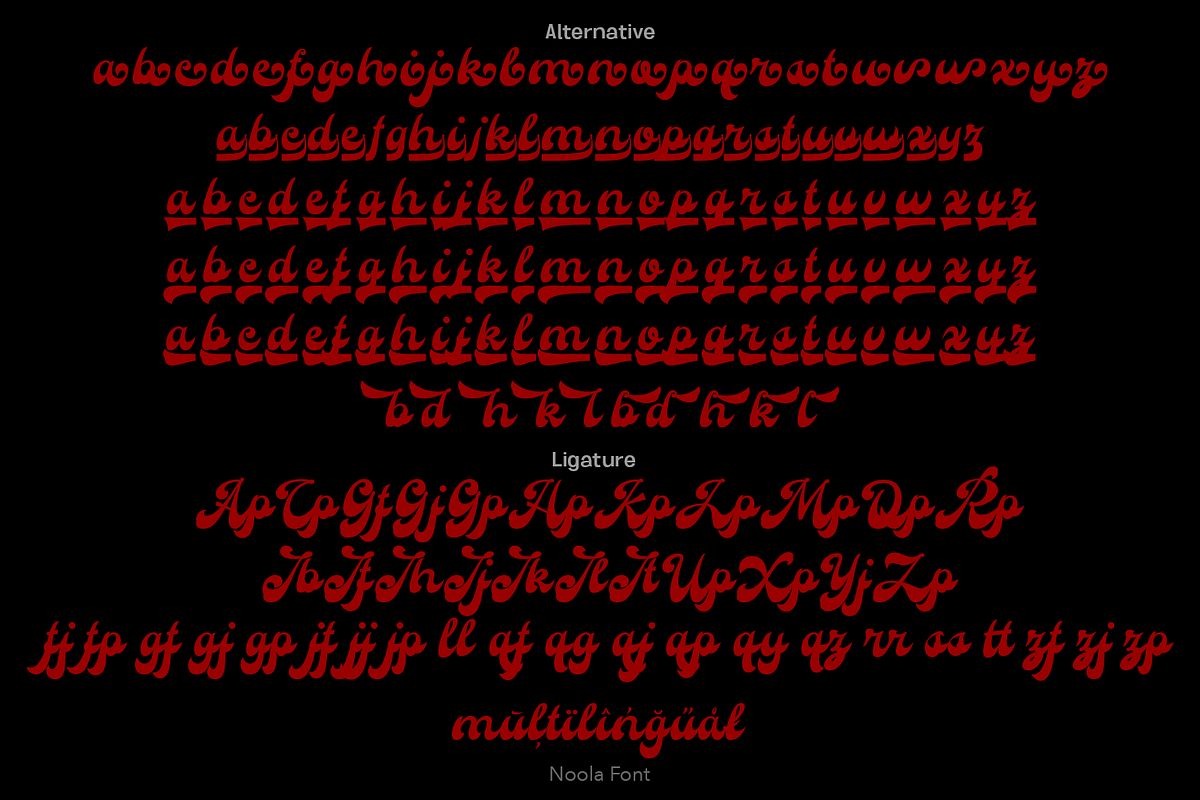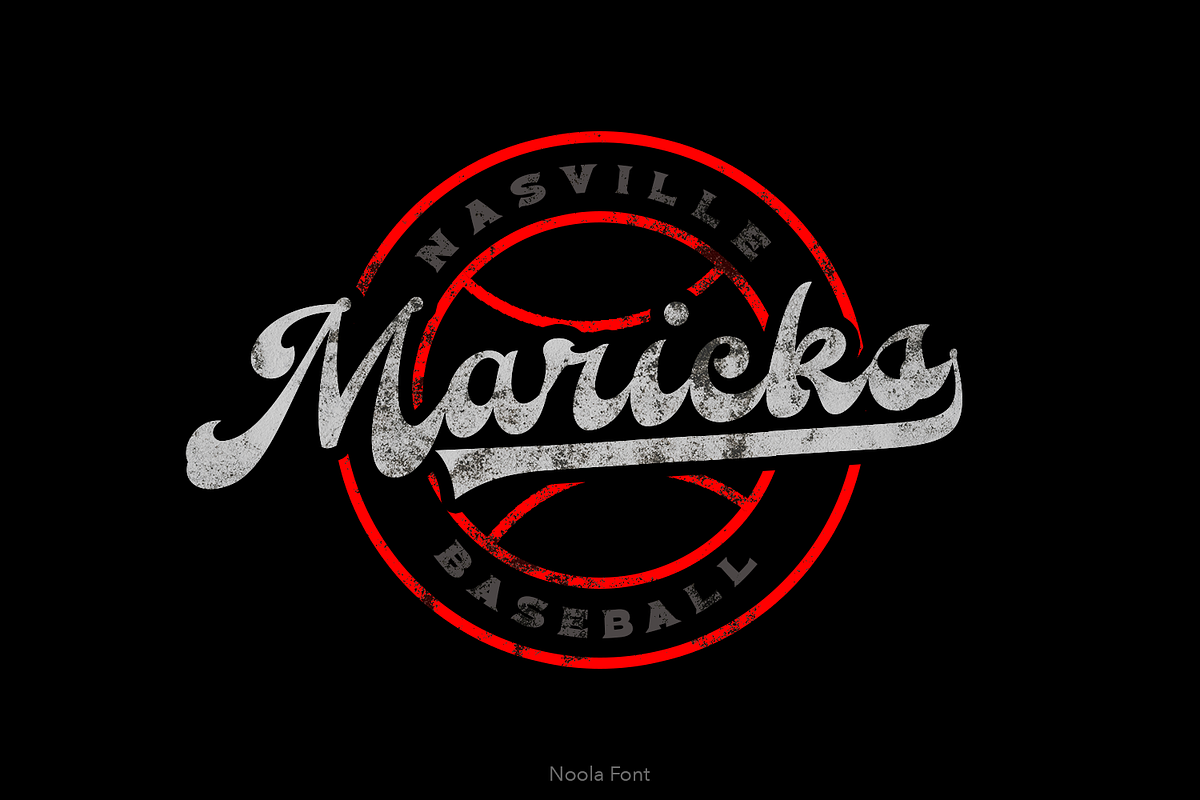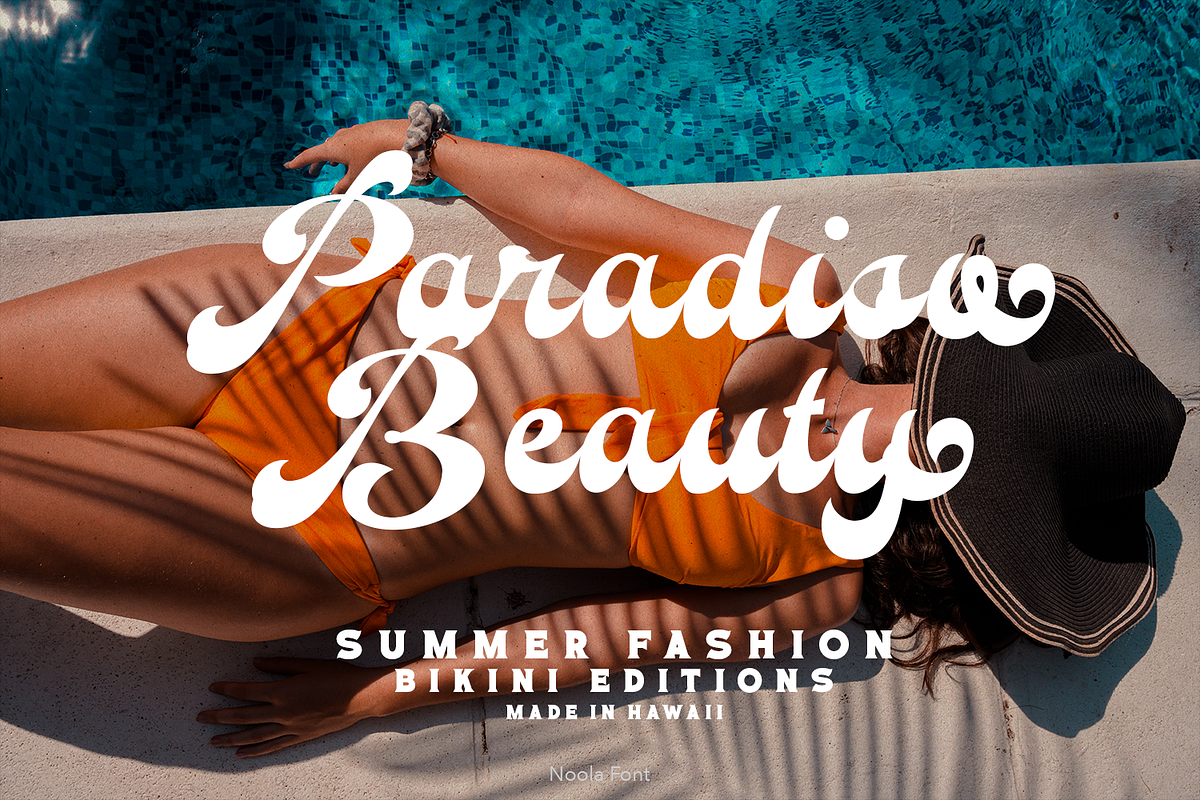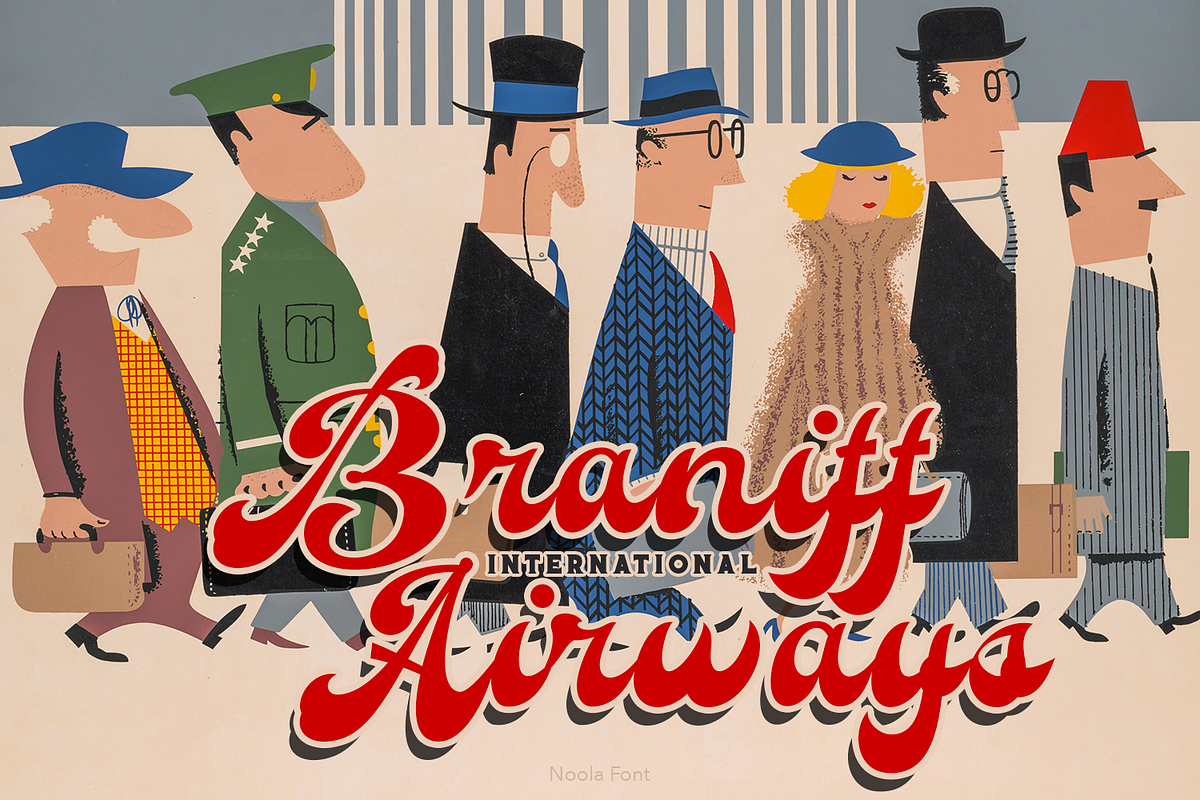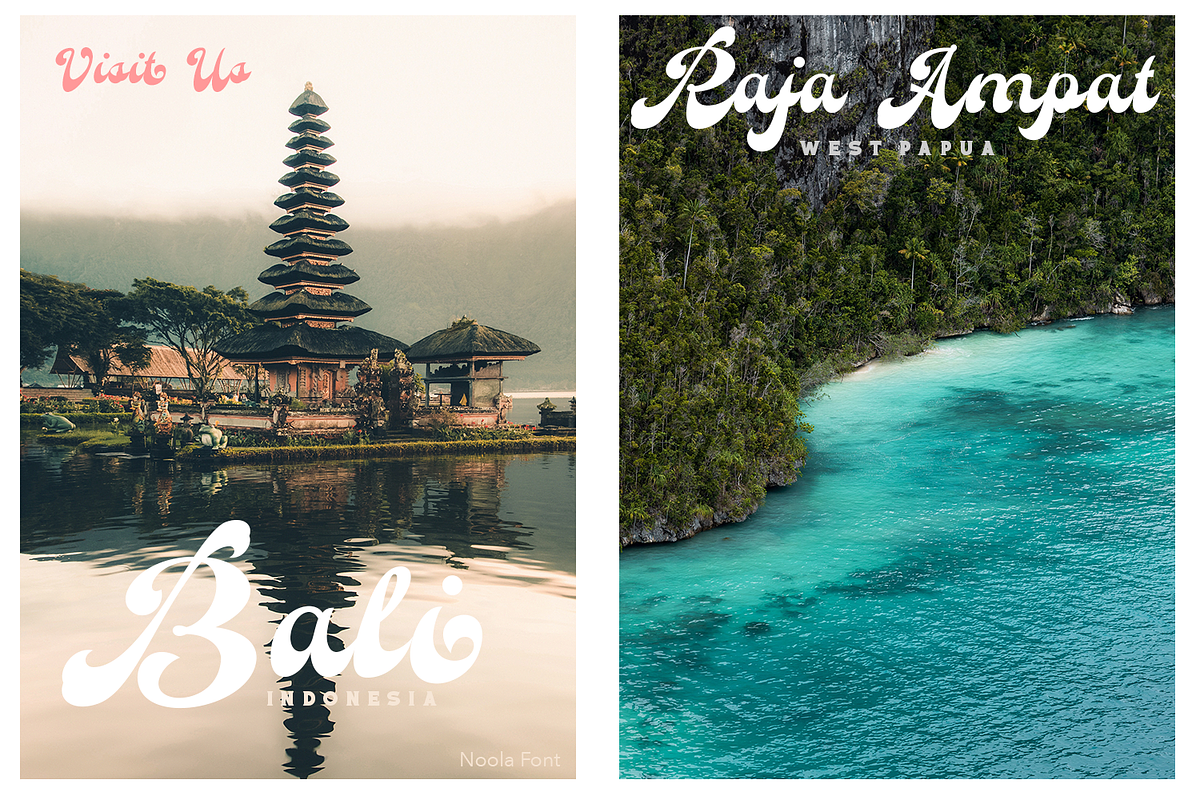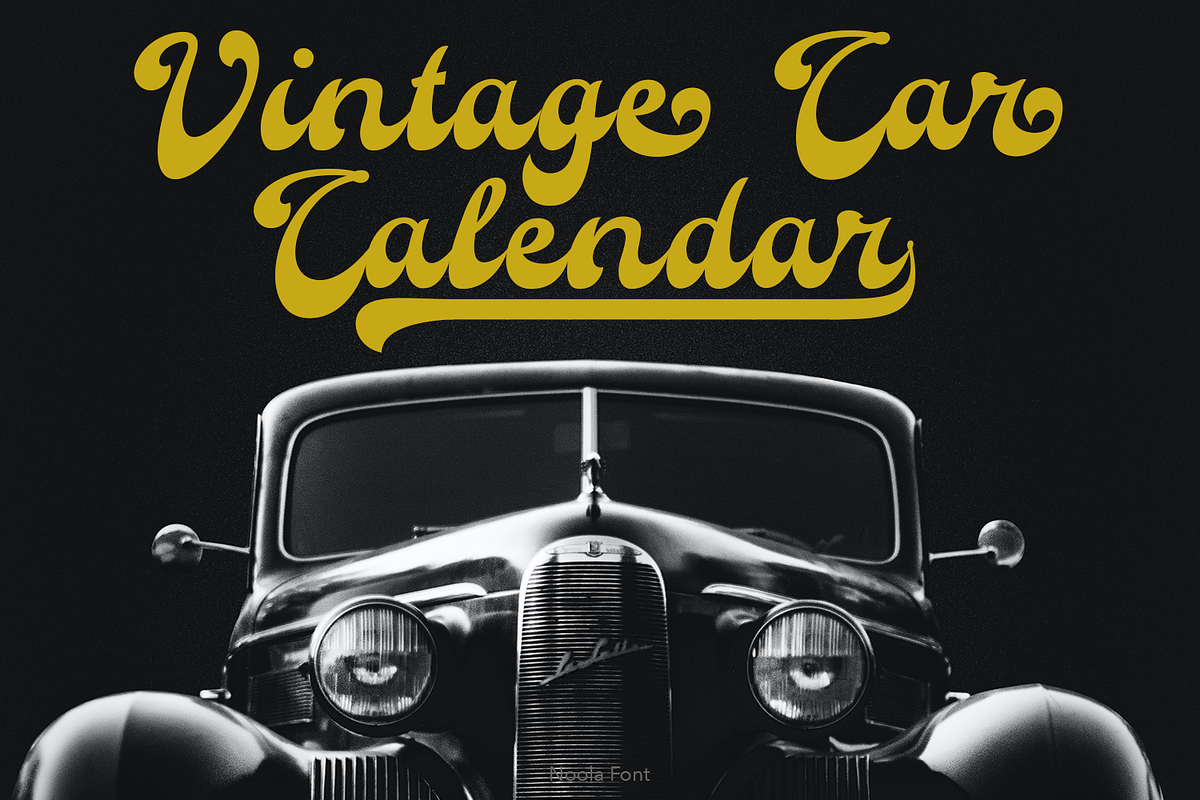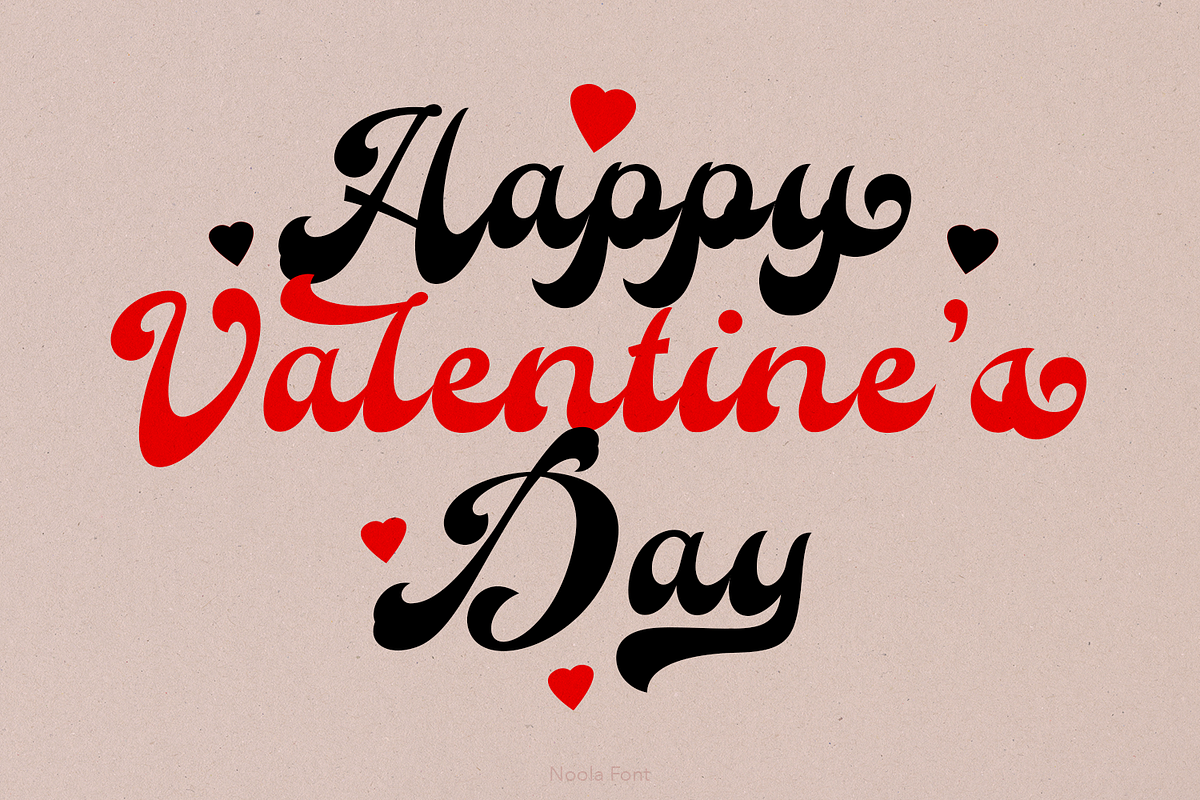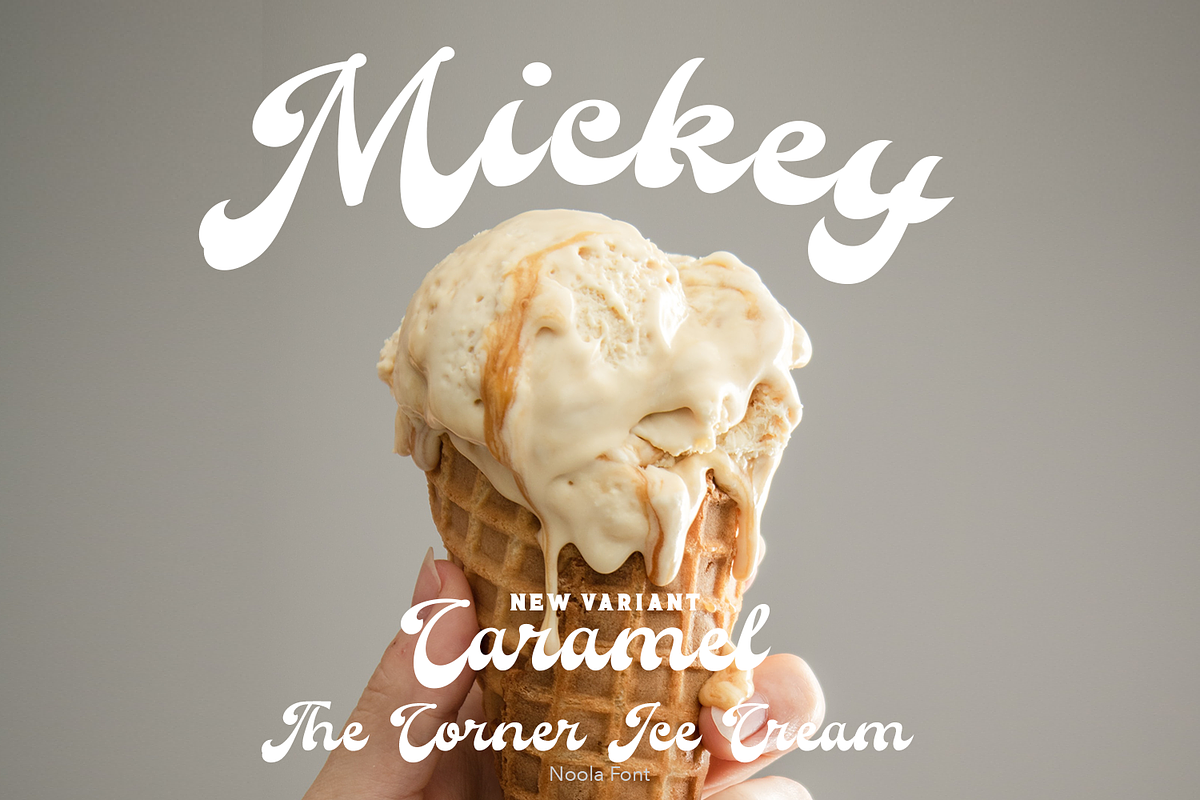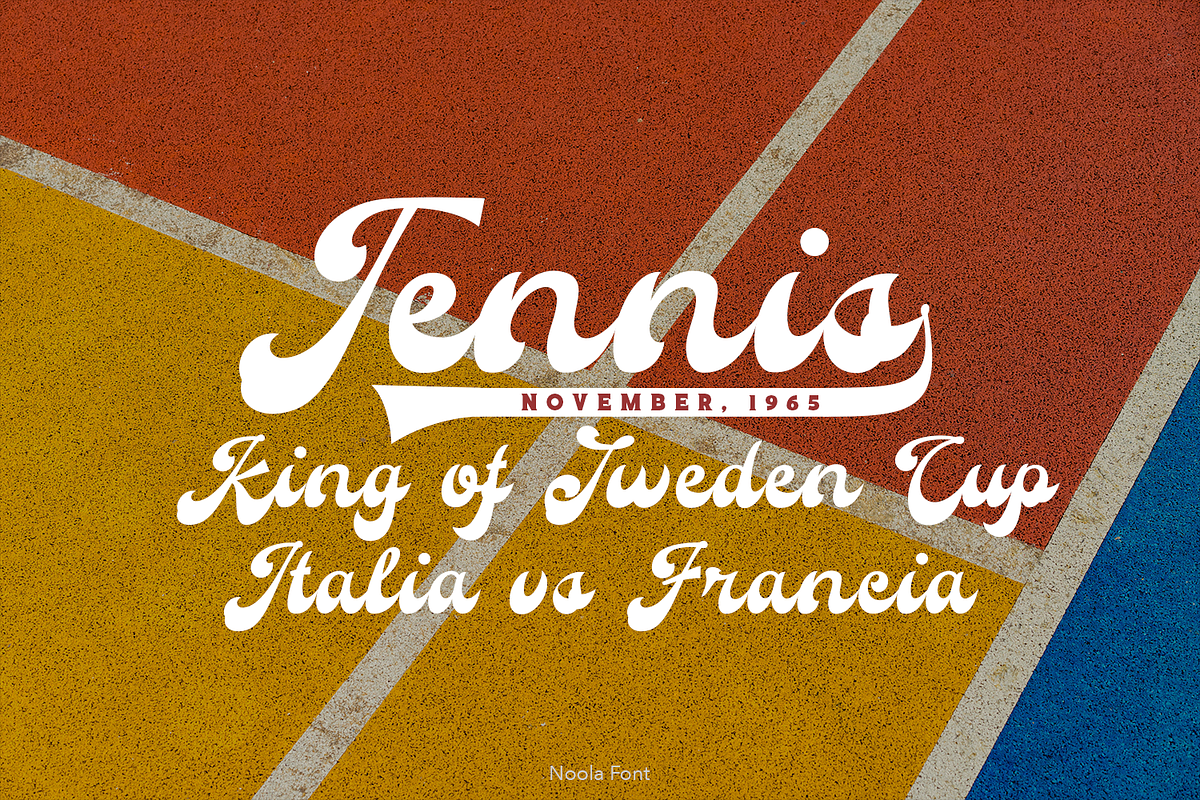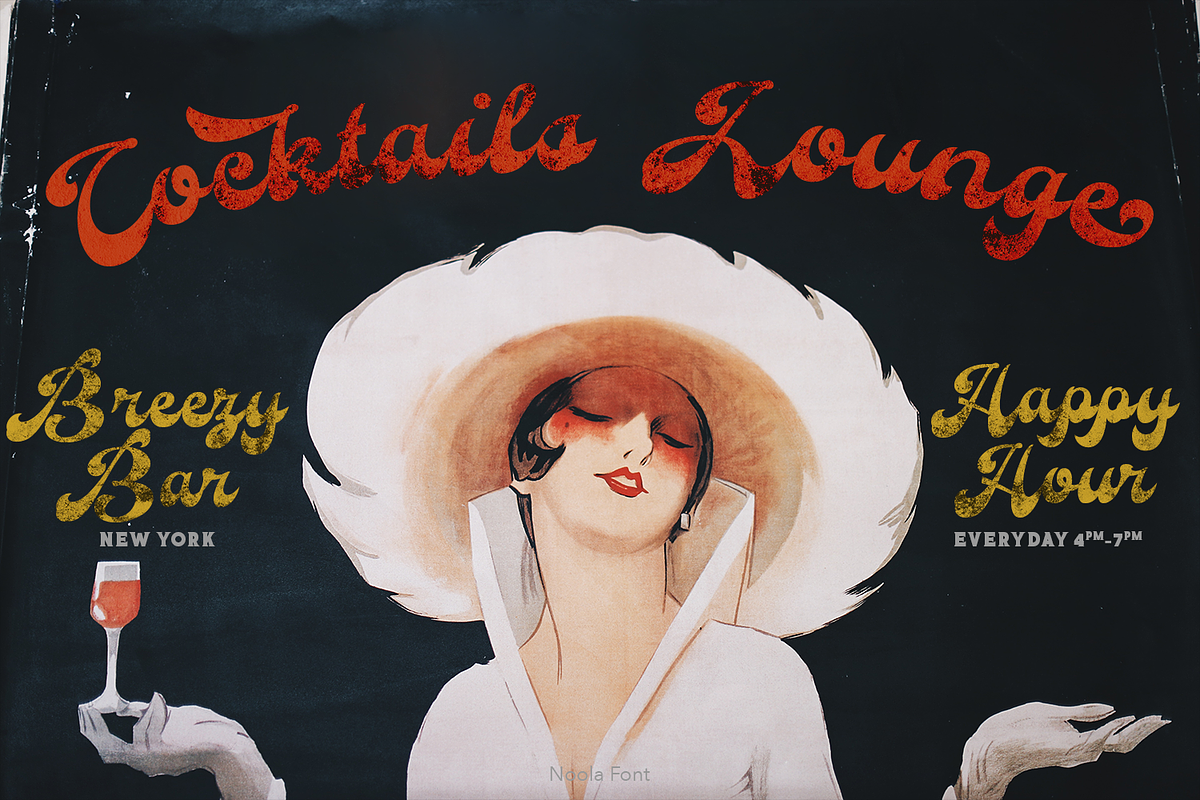
Noola Retro Font
Noola is a retro script come with 60's style. Retro and refined you can explore and combine creating rhythm for comfortable reading. This font perfect for any projects, such logotype, stickers, greeting / wedding cards, packaging design, headlines, brand identity, t-shirt, posters, magazines, books, Instagram, websites, and many more.